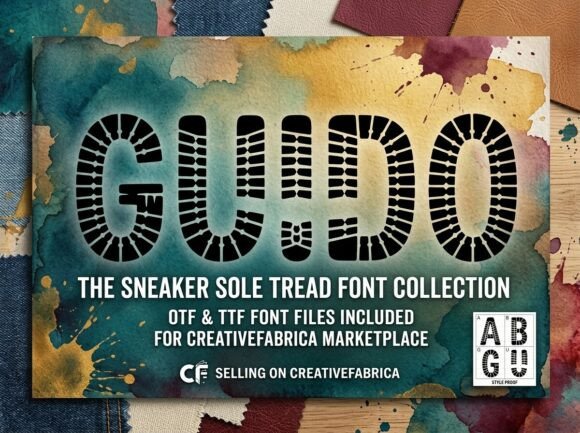
Introducing Guido Font: Unleashing the Urban Energy in Typography
Step into a world of rhythmic urban energy with Guido, a unique display font collection that embodies the technical patterns of sneaker sole treads. This innovative typeface is meticulously crafted to bring a sense of handcrafted strength and professional, street-ready character to your visual identity. Guido is an extraordinary choice for designers and crafters looking to make a bold statement in streetwear branding, high-performance athletic apparel, urban lifestyle magazines, and high-impact sports graphics.
The Inspiration Behind Guido
Guido’s design inspiration stems from the intricate patterns found on sneaker sole treads. The font’s heavy, blocky letterforms are constructed from a cast of industrial “grip” textures, horizontal ridges, and geometric traction motifs. This distinctive design approach gives Guido its massive visual weight and athletic silhouette, making it perfect for applications where a strong, dynamic visual impact is required.
Key Features of Guido Font
- Industrial Aesthetic: Guido’s letterforms are built from industrial textures, giving it a raw, handcrafted feel that’s perfect for streetwear and athletic branding.
- Massive Visual Weight: The font’s bold, blocky design ensures that every word leaves a legendary and unforgettable impression.
- Athletic Silhouette: Guido’s geometric traction motifs and horizontal ridges evoke the dynamic, high-energy feel of athletic performance.
- Versatility: Guido is suitable for a wide range of applications, from streetwear branding and high-performance athletic apparel to urban lifestyle magazines and high-impact sports graphics.
Why Choose Guido Font?
Guido offers a unique combination of style, versatility, and visual impact that makes it an attractive choice for designers and crafters. Here are some reasons why Guido stands out:
- Unique Design: Guido’s industrial aesthetic and athletic silhouette set it apart from other display fonts.
- High-Impact Visuals: The font’s massive visual weight and bold design ensure that your message will grab attention and leave a lasting impression.
- Professional Character: Guido’s handcrafted feel and industrial textures give it a professional, street-ready character that’s perfect for high-end branding and design applications.
Using Guido Font in Design Projects
Guido is an incredibly versatile font that can be used in a wide range of design projects. Here are some ideas to get you started:
- Streetwear Branding: Use Guido to create bold, eye-catching logos and typography for streetwear labels and apparel.
- Athletic Apparel: Guido’s athletic silhouette and industrial aesthetic make it perfect for high-performance athletic apparel branding.
- Urban Lifestyle Magazines: Add a touch of urban energy to your magazine design with Guido’s bold, dynamic typography.
- Sports Graphics: Use Guido to create high-impact sports graphics, such as posters, flyers, and social media graphics.
Guido Font is a game-changing display font collection that brings a sense of handcrafted strength and professional, street-ready character to your visual identity. Its unique industrial aesthetic, massive visual weight, and athletic silhouette make it an extraordinary choice for designers and crafters looking to make a bold statement in streetwear branding, high-performance athletic apparel, urban lifestyle magazines, and high-impact sports graphics. With Guido, every word leaves a legendary and unforgettable impression.